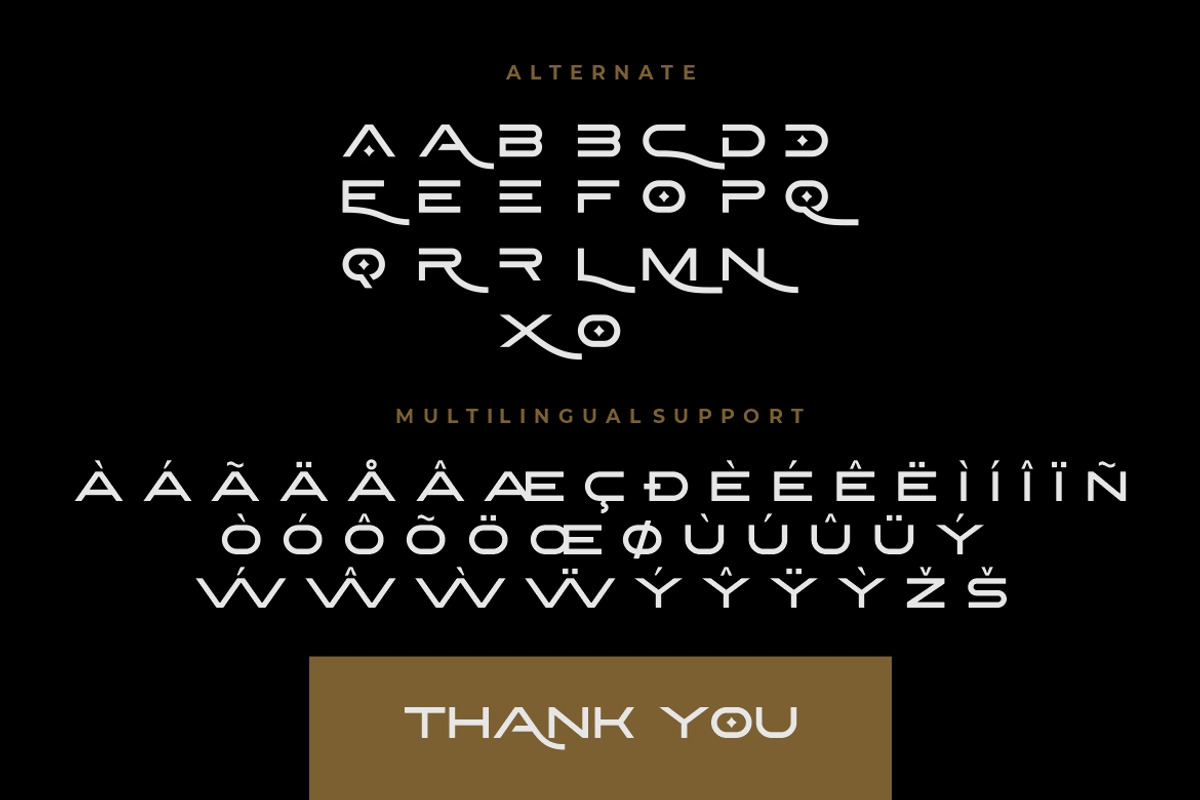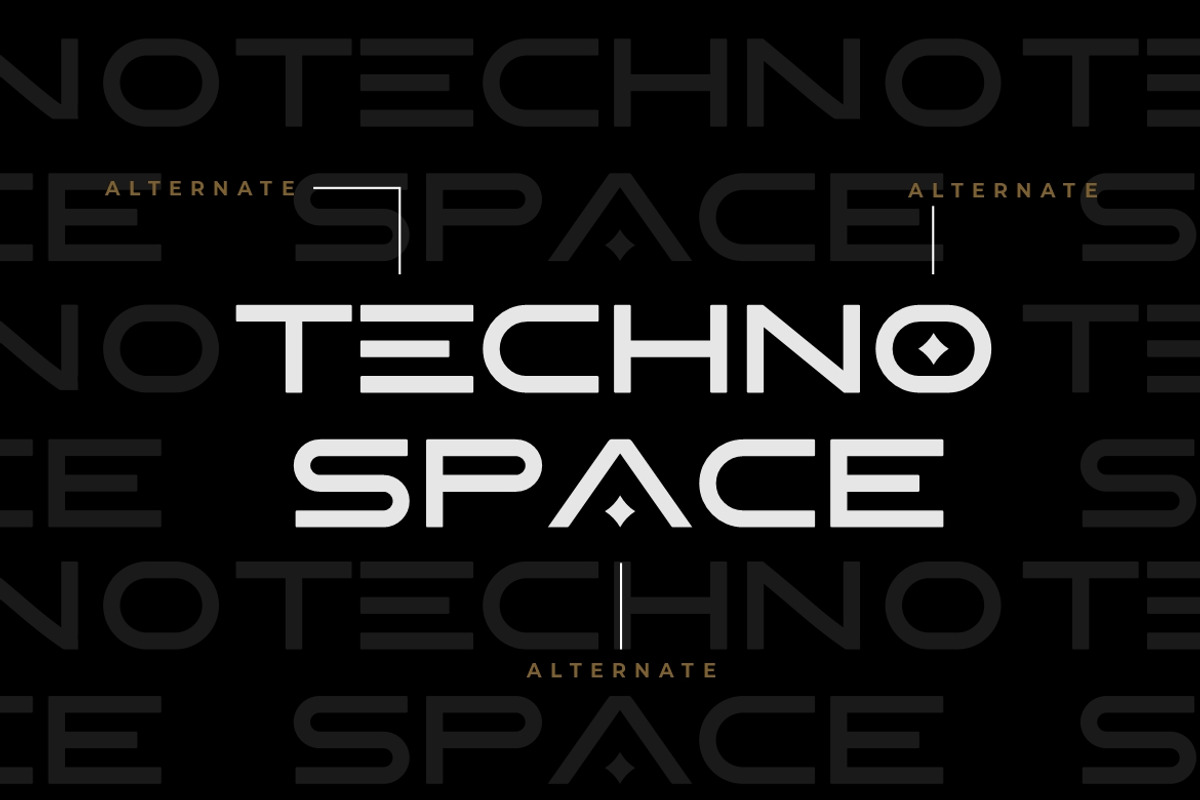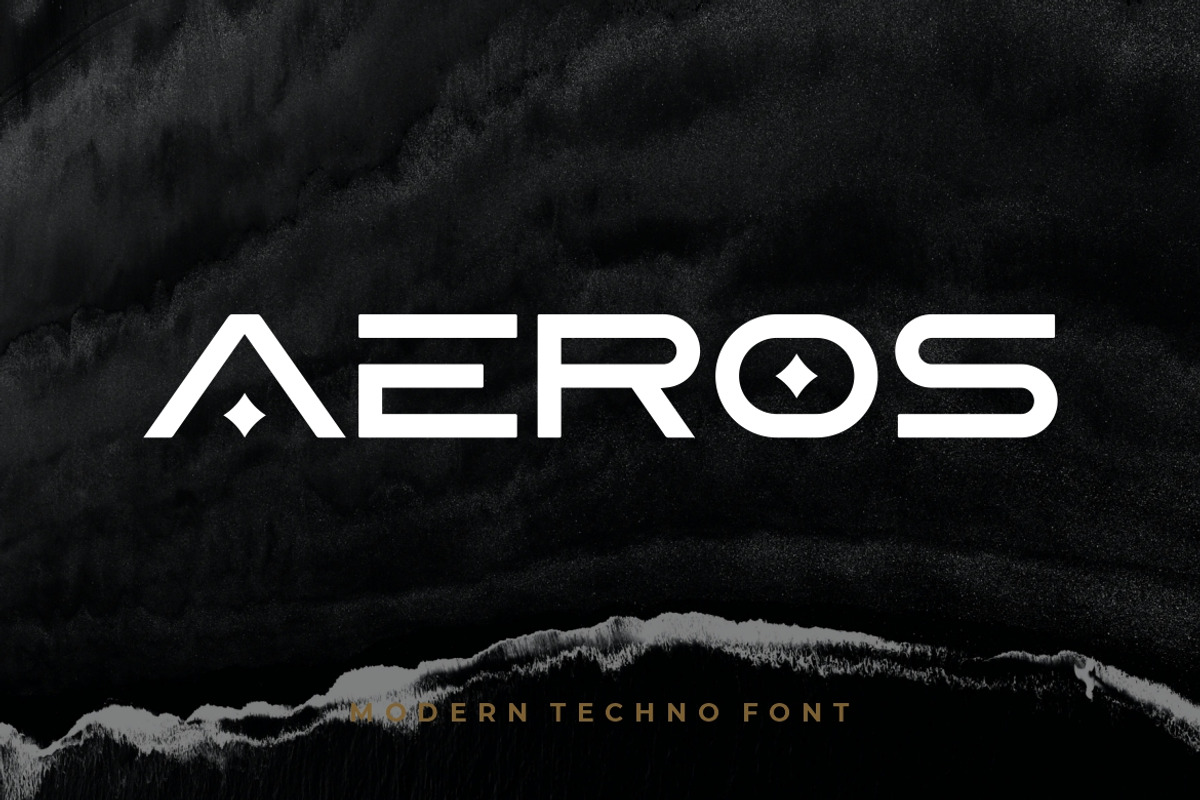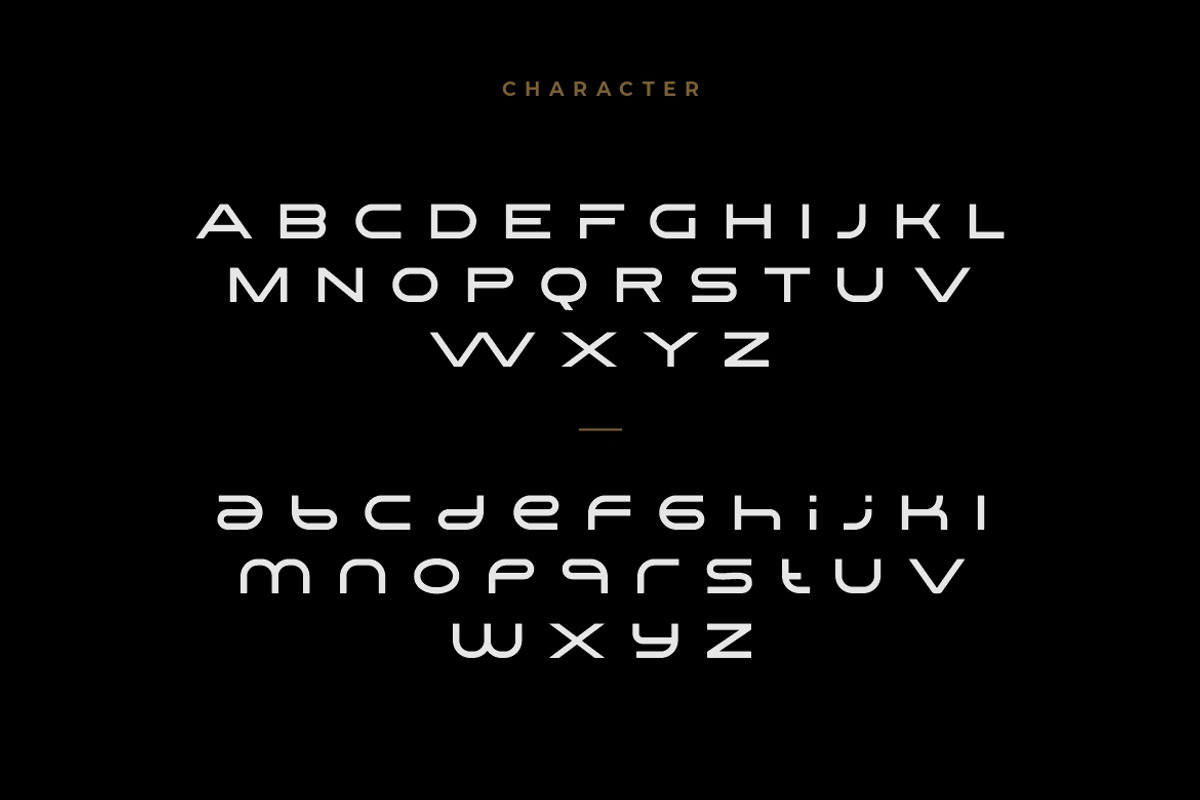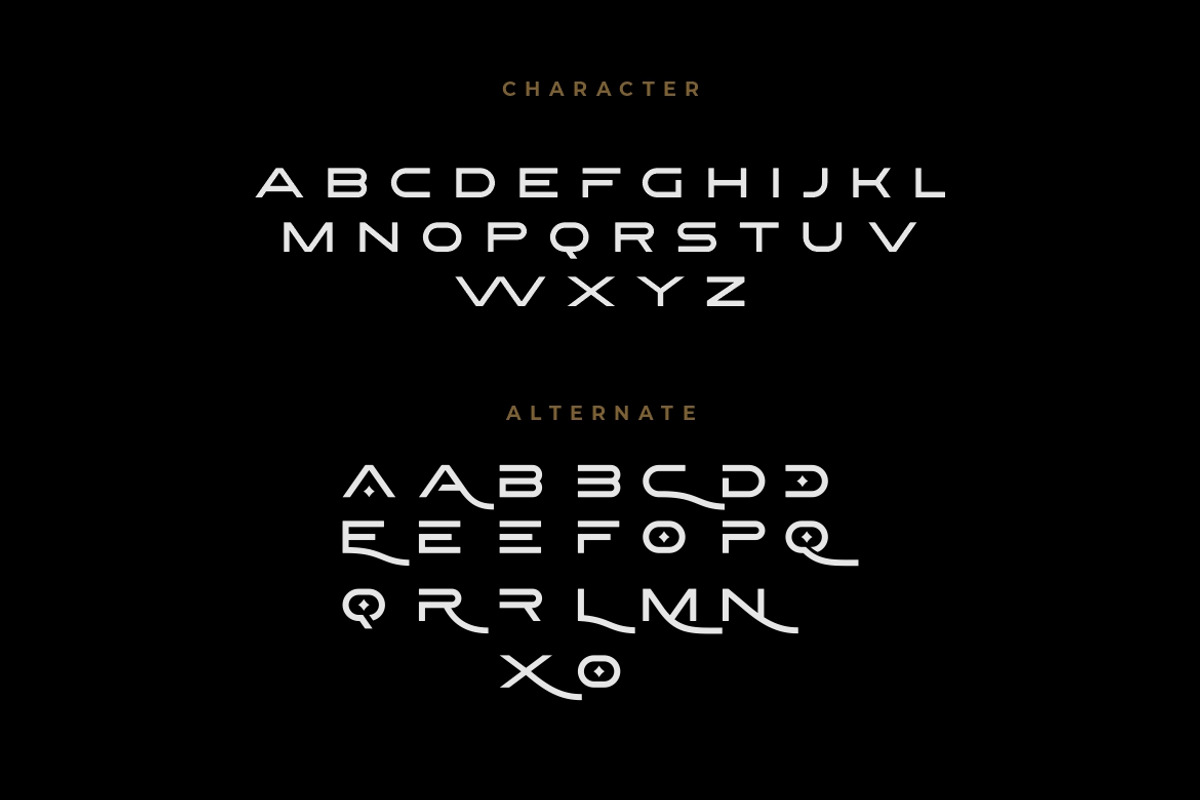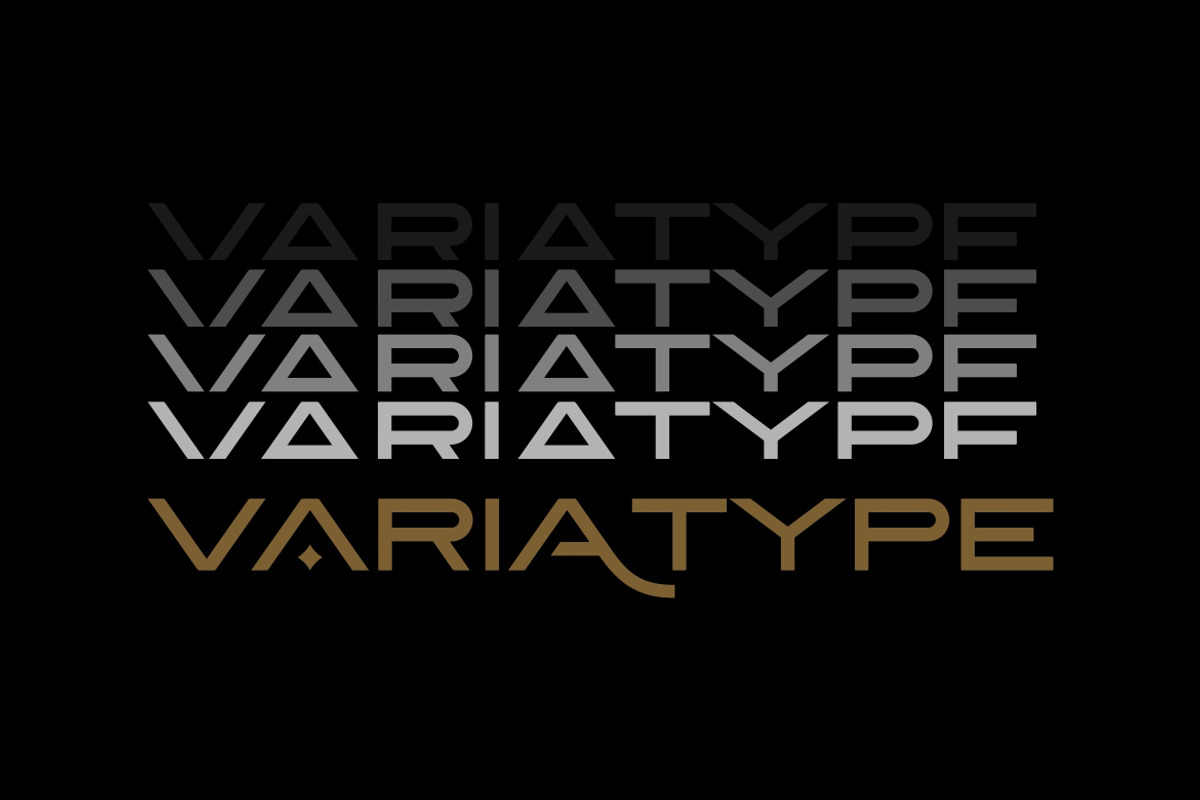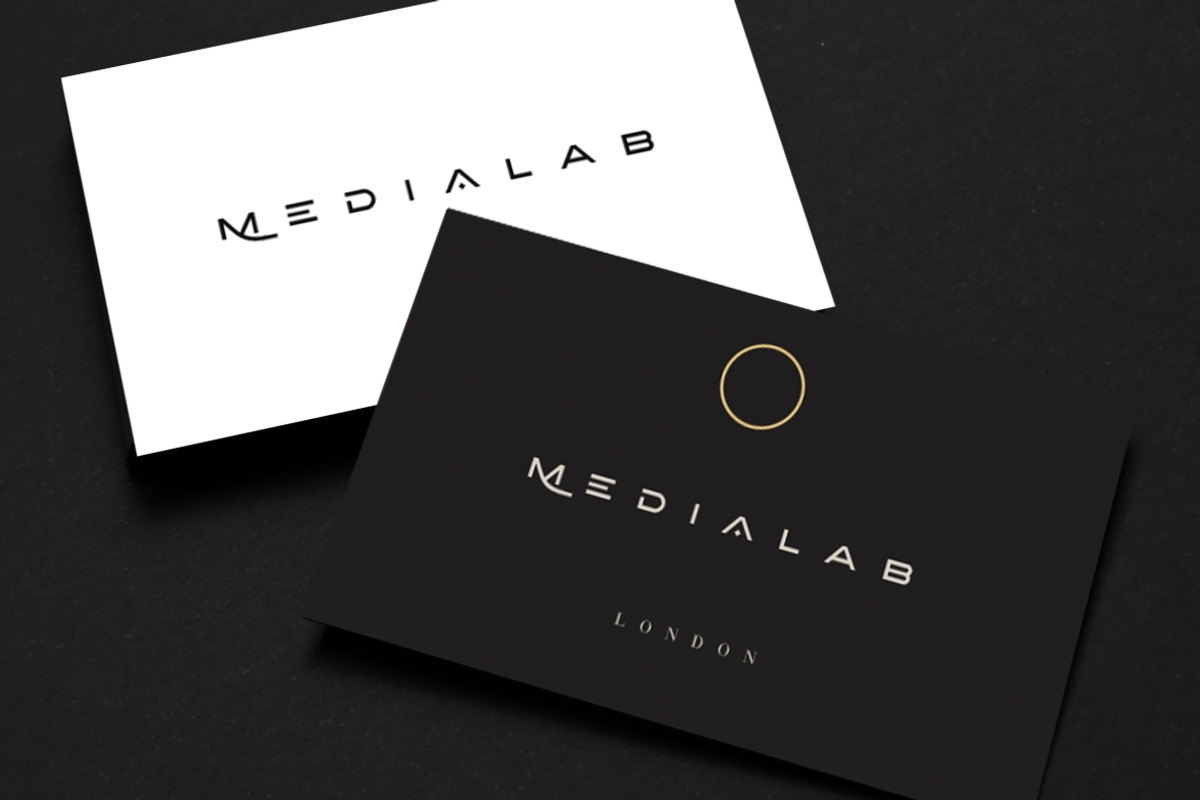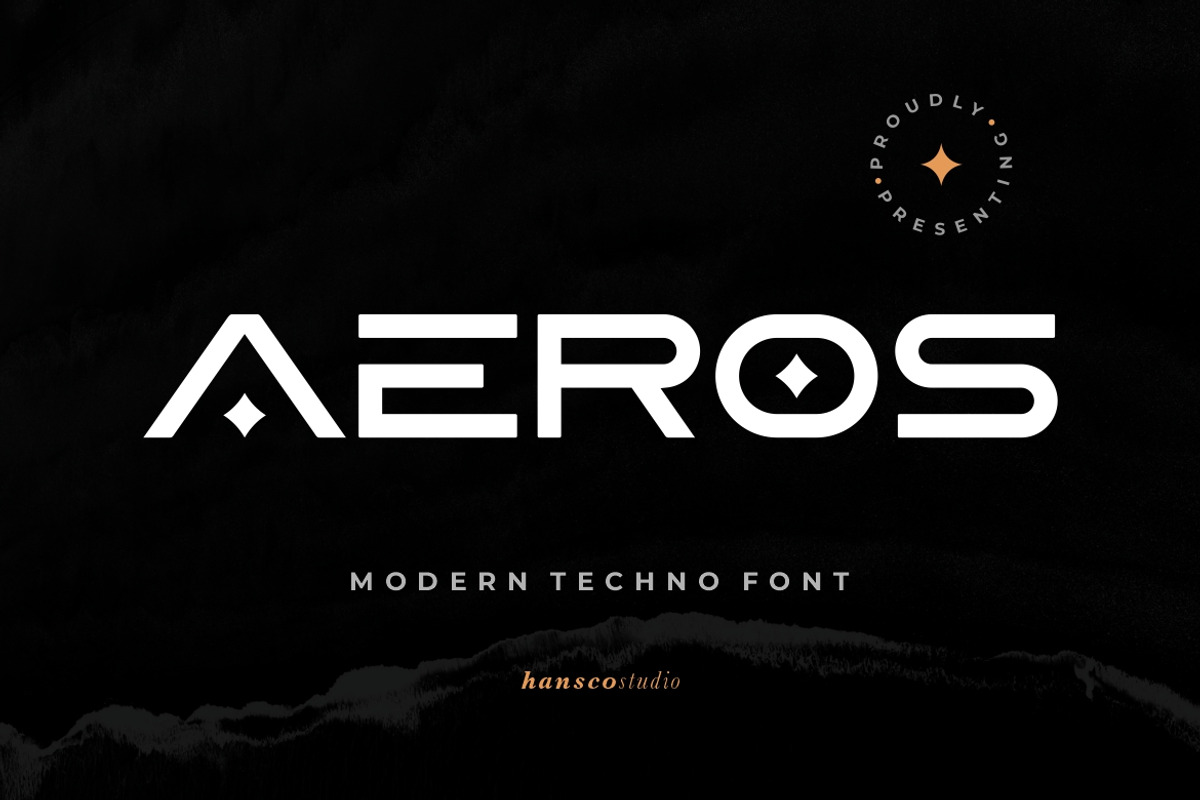
Aeros - Techno Font
Aeros is a futuristic font with unique style in UPPERCASE that will make your design looks hi-tech and modern. You can use this font for any purpose, especially to make logotype and all about print template with some futuristic feels. You can mix and match the uppercase and lowercase to make your logo more readable. This font also provides some alternative characters, check and get the best version of yours. This font comes with a full uppercase, lowercase, numbers, punctuation and with extensive language support, it's going to be a very usable addition to your project. Thus, you get a universal font kit with which all the tasks of futuristic design are solved.
• Uppercase & Lowercase • Number • Punctuation • Multilingual Supports • Alternate Swash Character